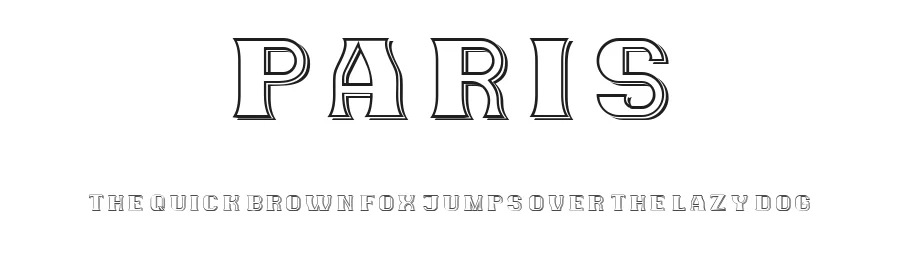
About Alota Font
Say hi to ΒAlotaΒ retro typeface. Inspired by 70Βs design styles, a good decade where we saw many calm colors with groovy, bold, 3D and round shape.
| Designer | Eric Kurniawan |
Alota Font is a decorative font that shines as a display or heading face. Pair it with a clean sans-serif or serif font for body text β the contrast creates a clear hierarchy while the two styles stay balanced and easy to read.